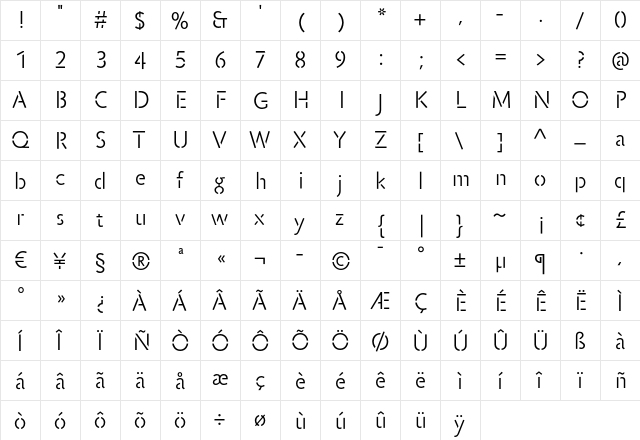
Jigsaw Regular Font Preview
Jigsaw Regular
Jigsaw Regular Font Details
Design Context for Jigsaw Typeface
Jigsaw offers clean, dependable letterforms without strong stylistic allegiance, making it a practical choice for designers who need flexibility.
Pro Tip: Use Jigsaw in both headline and body roles to test its range before committing to a single application.